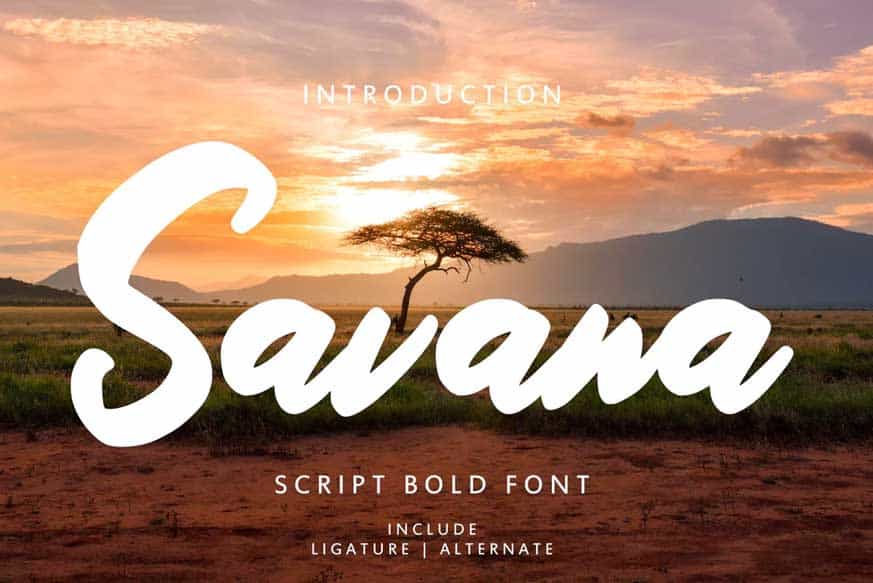
Savana looks brash but elegant, with touches to catch the attention of detail. If it’s for Lugano, for a medieval-style web page or anywhere else you want to raise up your profile, this style will fit in just nicely.